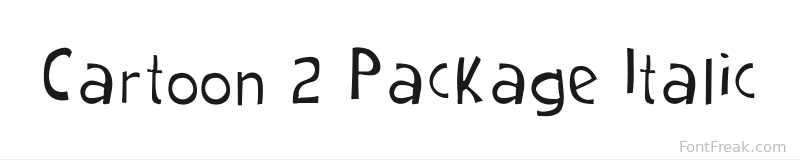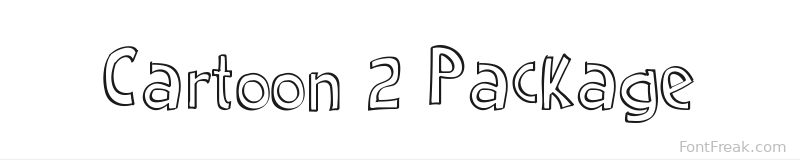
Cartoon 2 Package
Cartoon 2 Package Italic
The Cartoon 2 Package font by Galdino Otten Fonts is a delightful display typeface that embodies a playful and whimsical essence, making it perfect for various creative projects. This font is characterized by its bold, rounded strokes and a consistent weight that offers a friendly, approachable look. The design features a unique blend of italicized letters and slight irregularities that enhance its hand-drawn aesthetic, providing a charmingly informal vibe. The spacing between the characters is well-balanced, allowing for readability while maintaining a lively character.
Ideal use cases for the Cartoon 2 Package font include children’s book covers, animated movie posters, and vibrant restaurant menus that aim to attract a younger audience. It can also elevate birthday invitations and festive greeting cards, where a cheerful tone is essential. The font's versatility makes it suitable for graphic designers looking to add a fun touch to their projects, as well as small business owners who want to convey a friendly and welcoming atmosphere in their branding.
What truly sets the Cartoon 2 Package font apart is its ability to evoke a sense of joy and creativity. The playful design elements combined with its versatility make it a standout choice for anyone looking to infuse their designs with a bit of character. For those interested, the Cartoon 2 Package font free download is readily available, allowing creators to explore its potential in their projects.